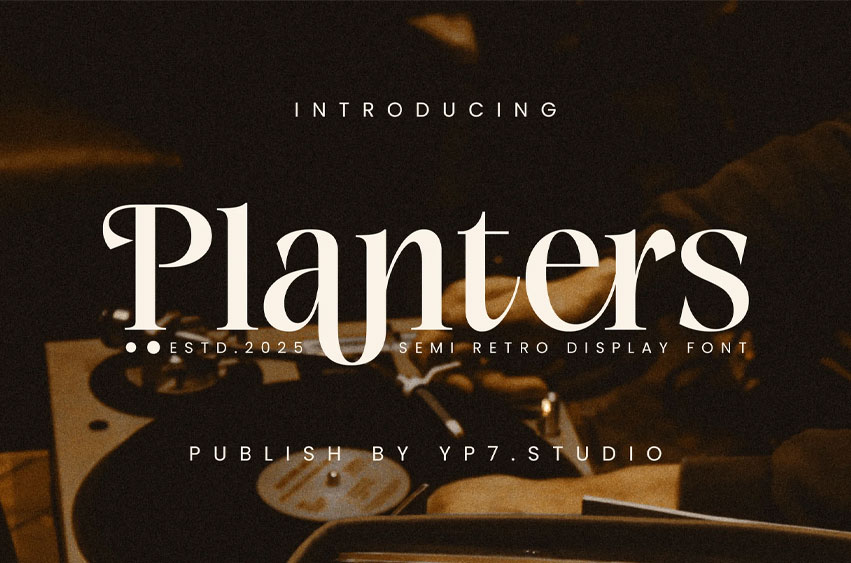
Planters Font
Planters Font Semi Retro Display Font – Planters. It is suitable for flyers, posters, novels, letterheads, or any design requirements you want to be awesome.